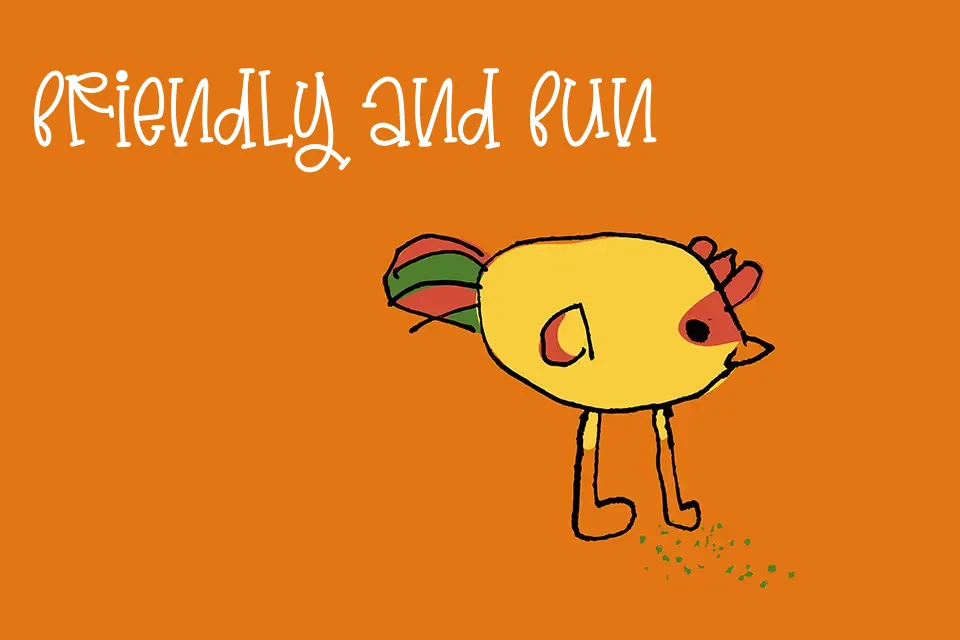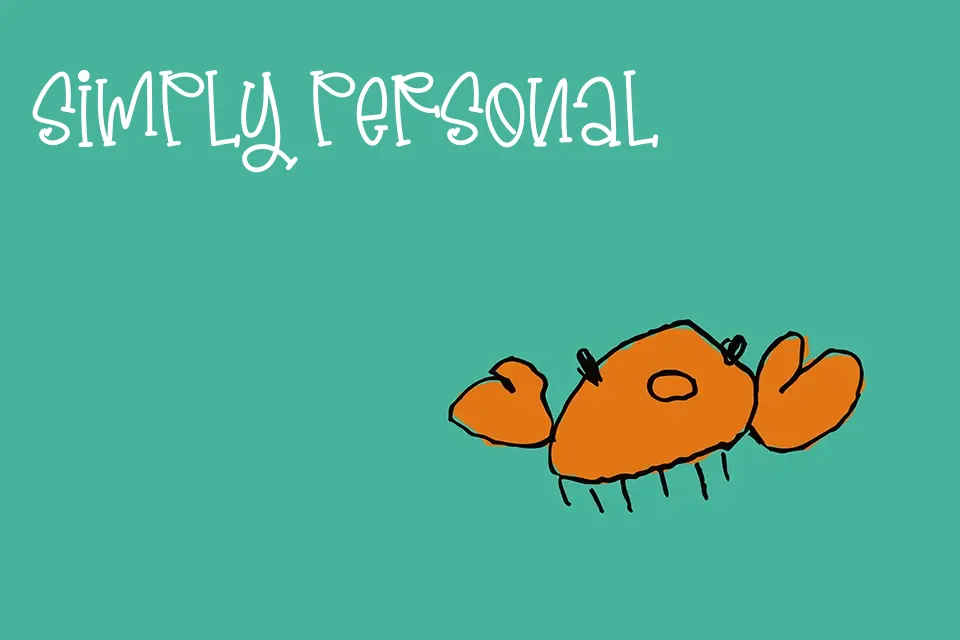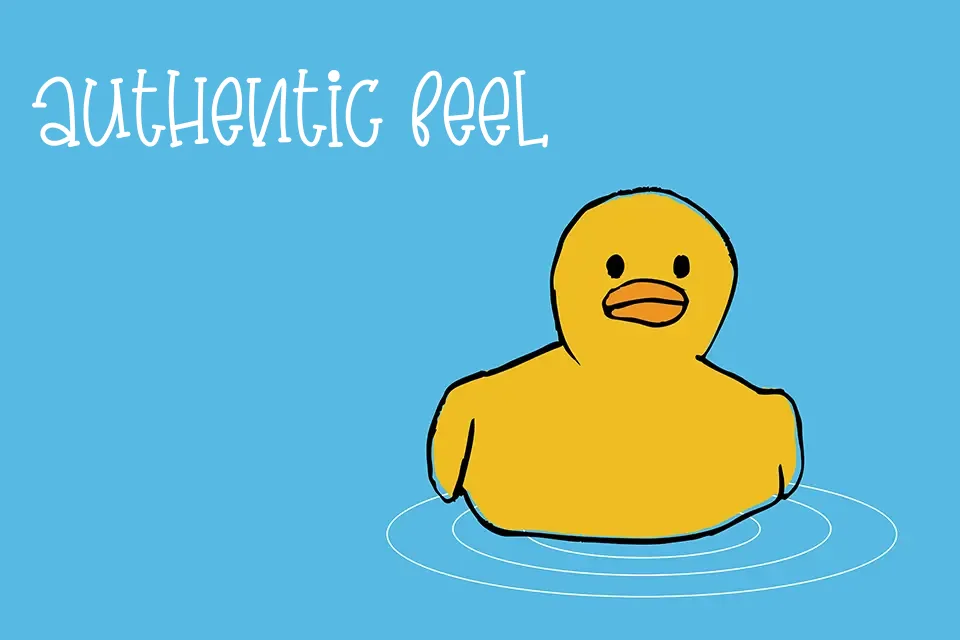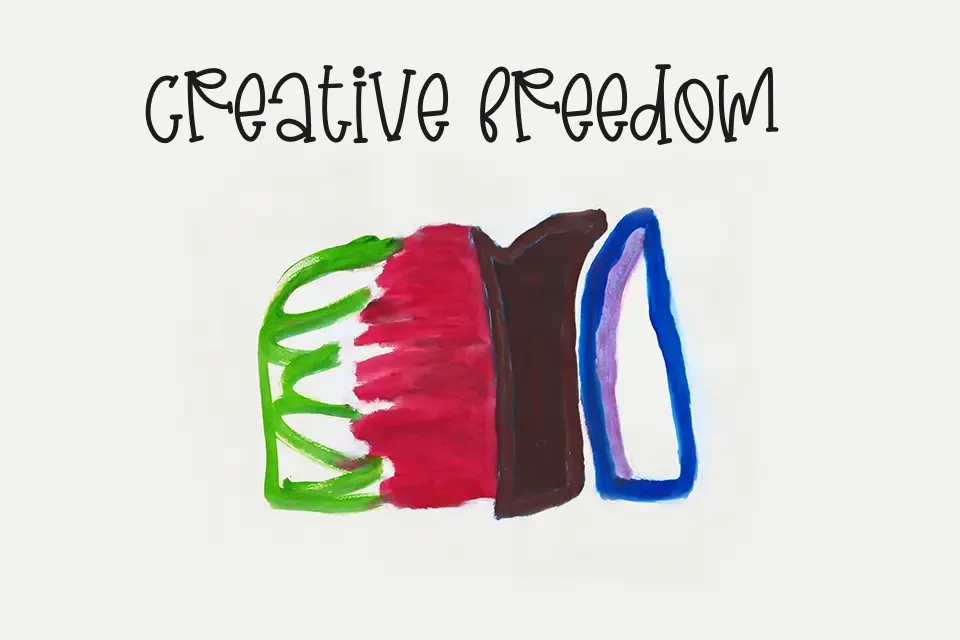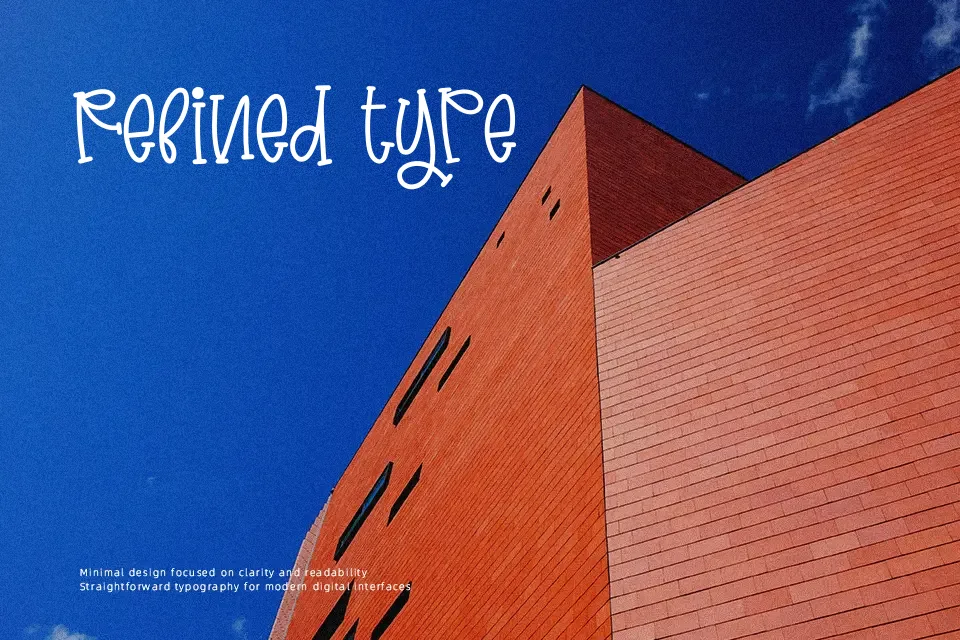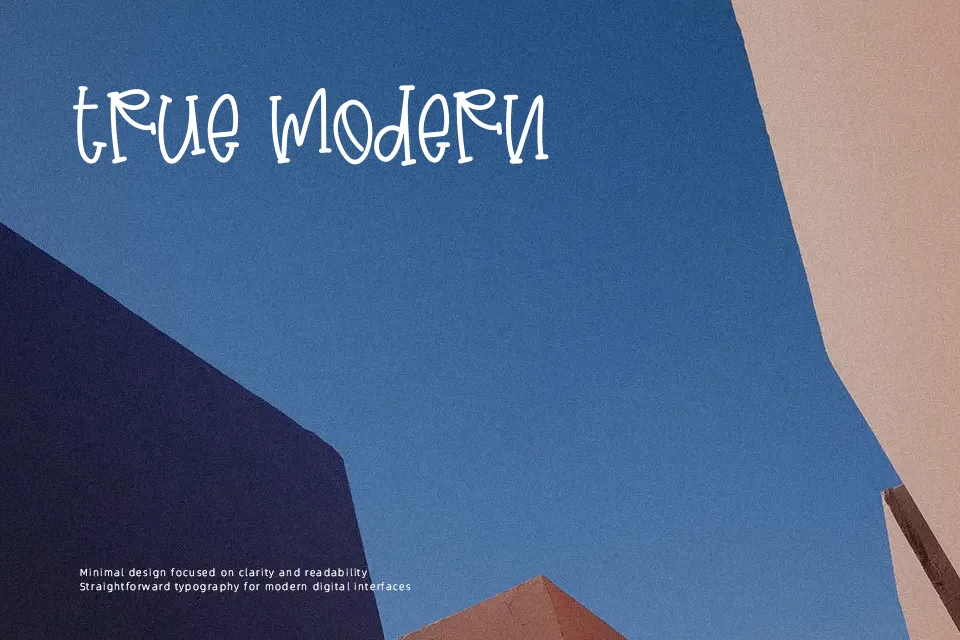
Baby Orchid Font
The letters in Baby Orchid have a relaxed, hand-drawn structure with slightly irregular curves and a light, bouncy rhythm that reads as friendly and informal at a glance. Rounded terminals and generous internal spacing help each character breathe, which works nicely on short phrases, names, and playful headings. Visually it sits between a casual script and a simple cartoon-style handwritten font, making it suited to baby products, kids’ party invitations, milestone cards, and cute quote posts. It struggles in long paragraphs or small caption sizes, where the loose shapes can start to feel messy and tiring to read. Use it when you want a soft, youthful voice, but avoid it for serious branding or content-heavy layouts.
baby shower invitation titles
nursery wall print quotes
kids’ birthday party posters
social media posts for baby products
long paragraph text or articles
formal corporate branding or reports
ui interfaces and app body text
small-size footnotes or dense captions
Perfect for holiday, kids, and logo, with a cute and display style.